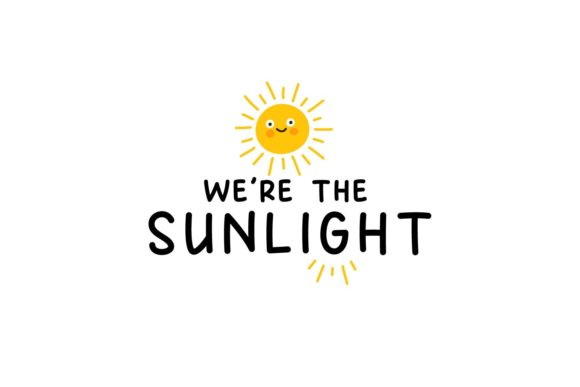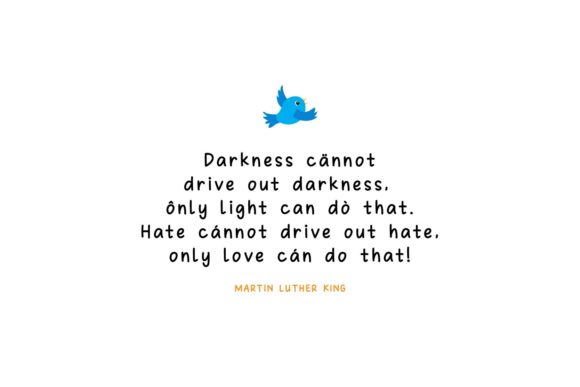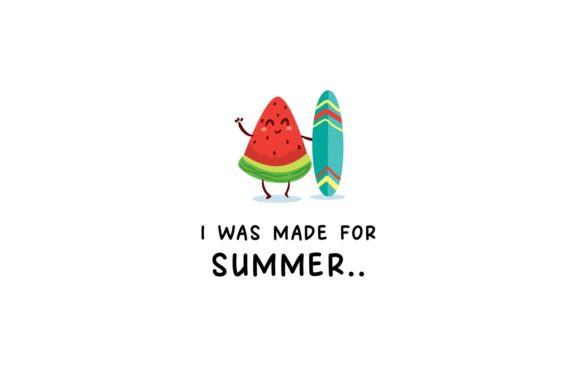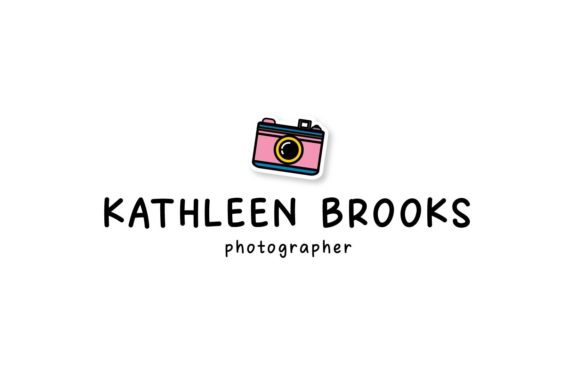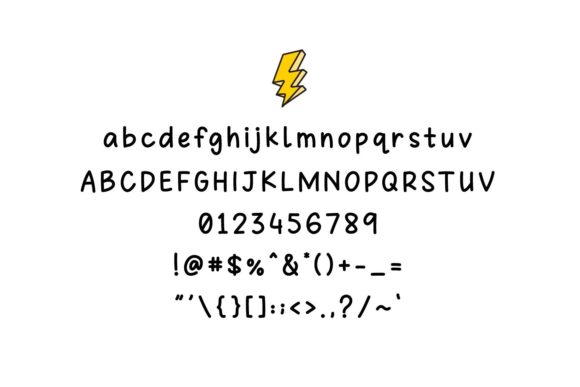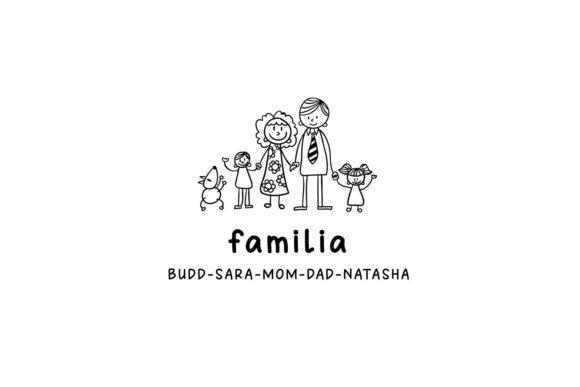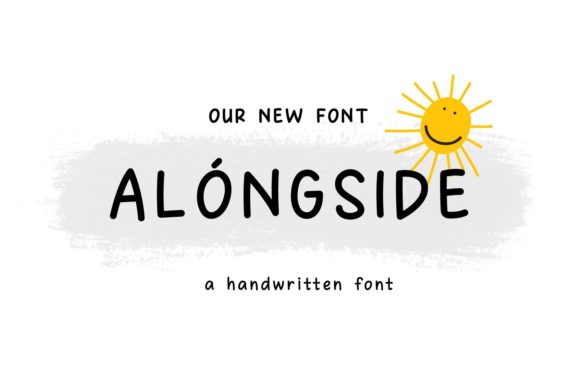
Introducing Alongside Font: A Cute and Delicate Handwritten Delight
Are you tired of using the same old fonts in your designs? Look no further! Alongside Font is a beautiful, handwritten font that is sure to add a touch of sweetness and whimsy to your creations. With its delicate and full-of-life style, Alongside Font is the perfect choice for designers and crafters looking to brighten up their designs.
The Characteristics of Alongside Font
Alongside Font is a carefully crafted handwritten font that exudes a sense of charm and playfulness. Its delicate strokes and sweet letterforms make it an ideal choice for designs that require a touch of elegance and sophistication. The font’s full-of-life style ensures that it is versatile and can be used in a variety of design projects, from wedding invitations to social media graphics.
Why Choose Alongside Font?
So, why choose Alongside Font over other fonts? Here are just a few reasons:
- Unique and Eye-Catching: Alongside Font is a one-of-a-kind font that is sure to grab attention. Its delicate and handwritten style sets it apart from more traditional fonts, making it perfect for designers looking to add a touch of personality to their designs.
- Versatile: Alongside Font is incredibly versatile and can be used in a variety of design projects, from digital graphics to print materials.
- Easy to Read: Despite its delicate style, Alongside Font is easy to read, making it perfect for designs that require a lot of text, such as blog posts or social media graphics.
- Perfect for Branding: Alongside Font is a great choice for branding projects, as it can help to create a unique and memorable visual identity for your brand.
Using Alongside Font in Your Designs
Alongside Font is incredibly easy to use and can be incorporated into your designs in a variety of ways. Here are a few ideas to get you started:
- Wedding Invitations: Alongside Font is a beautiful choice for wedding invitations, as it adds a touch of romance and whimsy to your designs.
- Social Media Graphics: Use Alongside Font to add a touch of personality to your social media graphics, such as Instagram posts or Facebook graphics.
- Blog Posts: Alongside Font is a great choice for blog posts, as it is easy to read and can help to add a touch of visual interest to your content.
- Branding Materials: Use Alongside Font to create a unique and memorable visual identity for your brand, including business cards, letterheads, and more.
Tips for Getting the Most Out of Alongside Font
Here are a few tips for getting the most out of Alongside Font:
- Experiment with Different Sizes: Alongside Font looks great in a variety of sizes, so don’t be afraid to experiment to find the perfect size for your design.
- Pair with Other Fonts: Alongside Font pairs well with a variety of other fonts, so try pairing it with a bold font for a striking contrast.
- Use in Combination with Images: Alongside Font looks great in combination with images, so try using it to add a touch of personality to your graphics.
Alongside Font is a beautiful, handwritten font that is sure to add a touch of sweetness and whimsy to your designs. With its delicate and full-of-life style, it is the perfect choice for designers and crafters looking to brighten up their designs. Whether you’re creating wedding invitations, social media graphics, or branding materials, Alongside Font is a great choice. So why not give it a try and see the difference it can make in your designs?